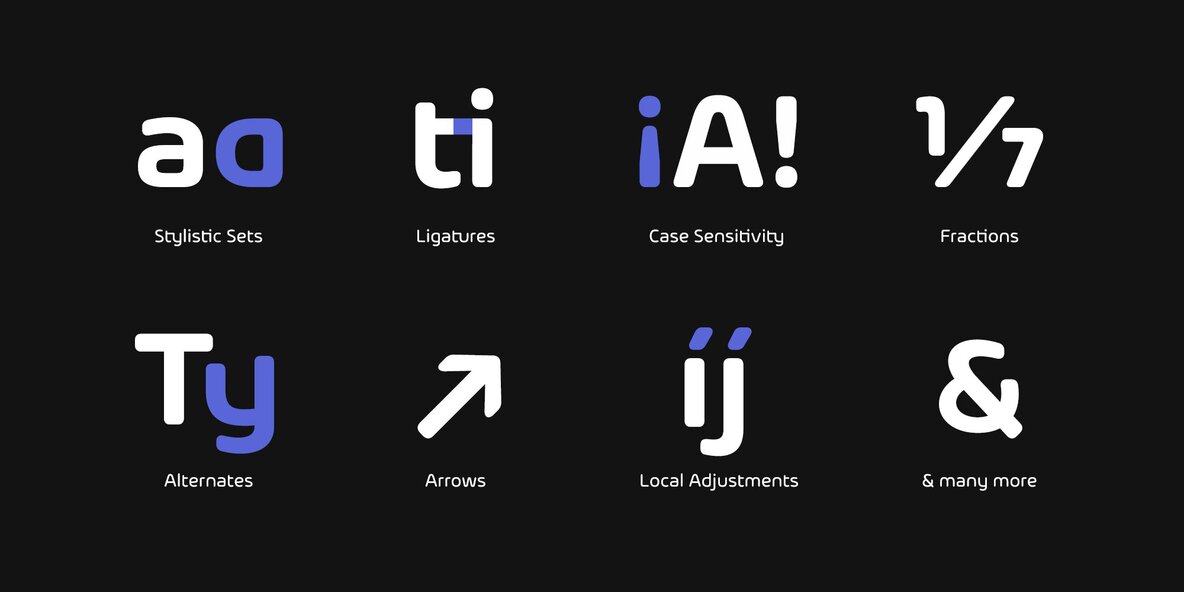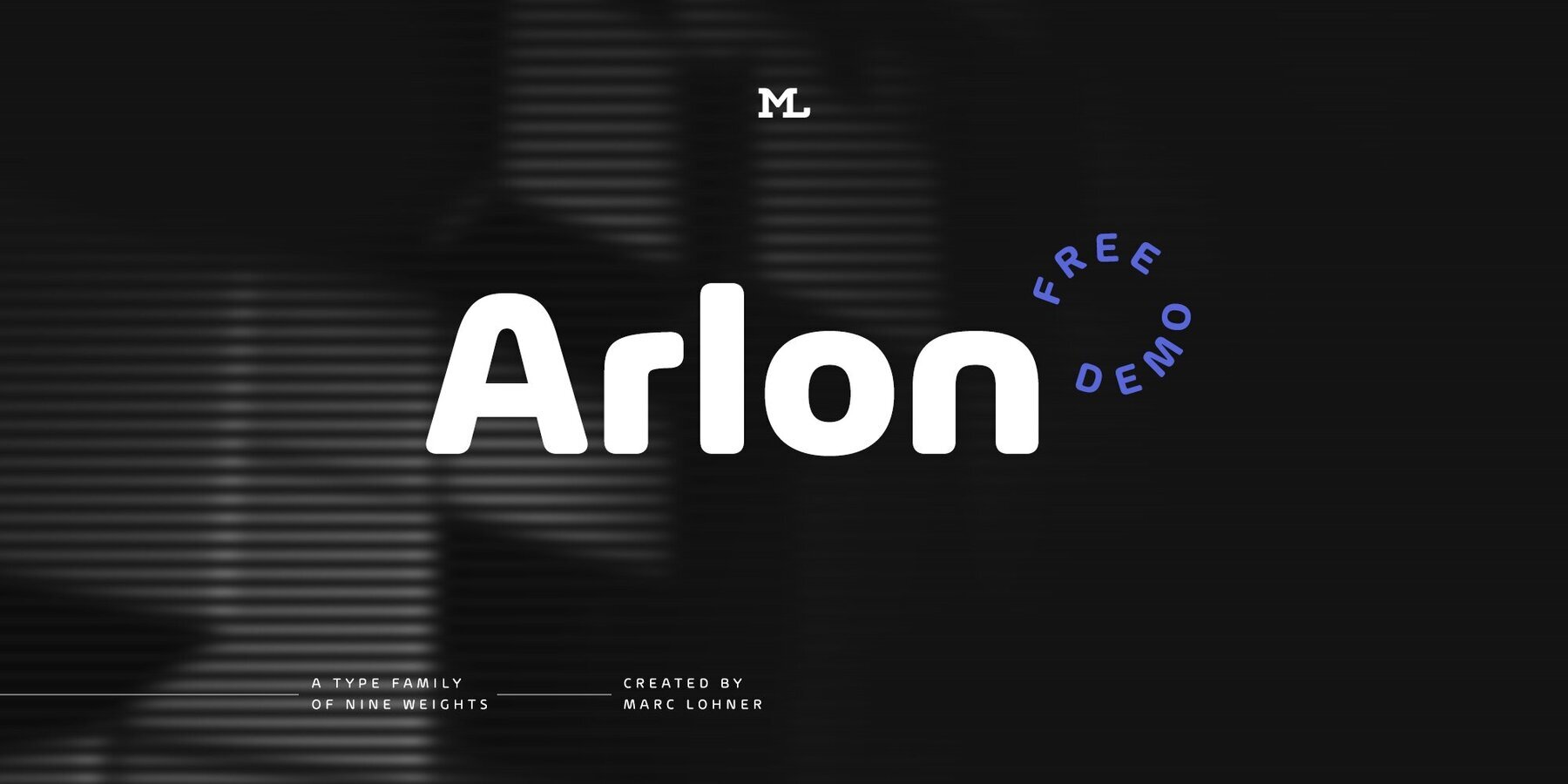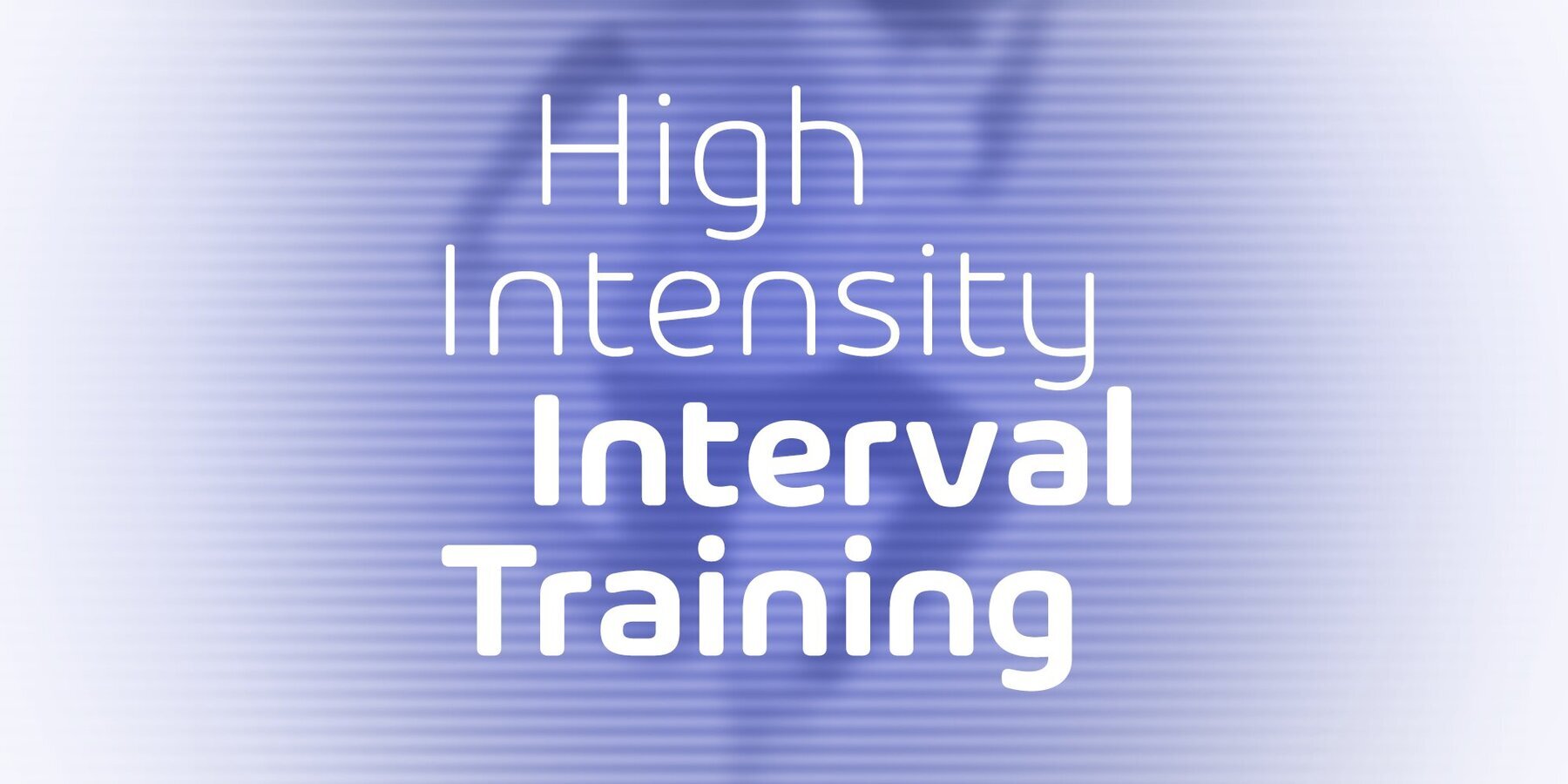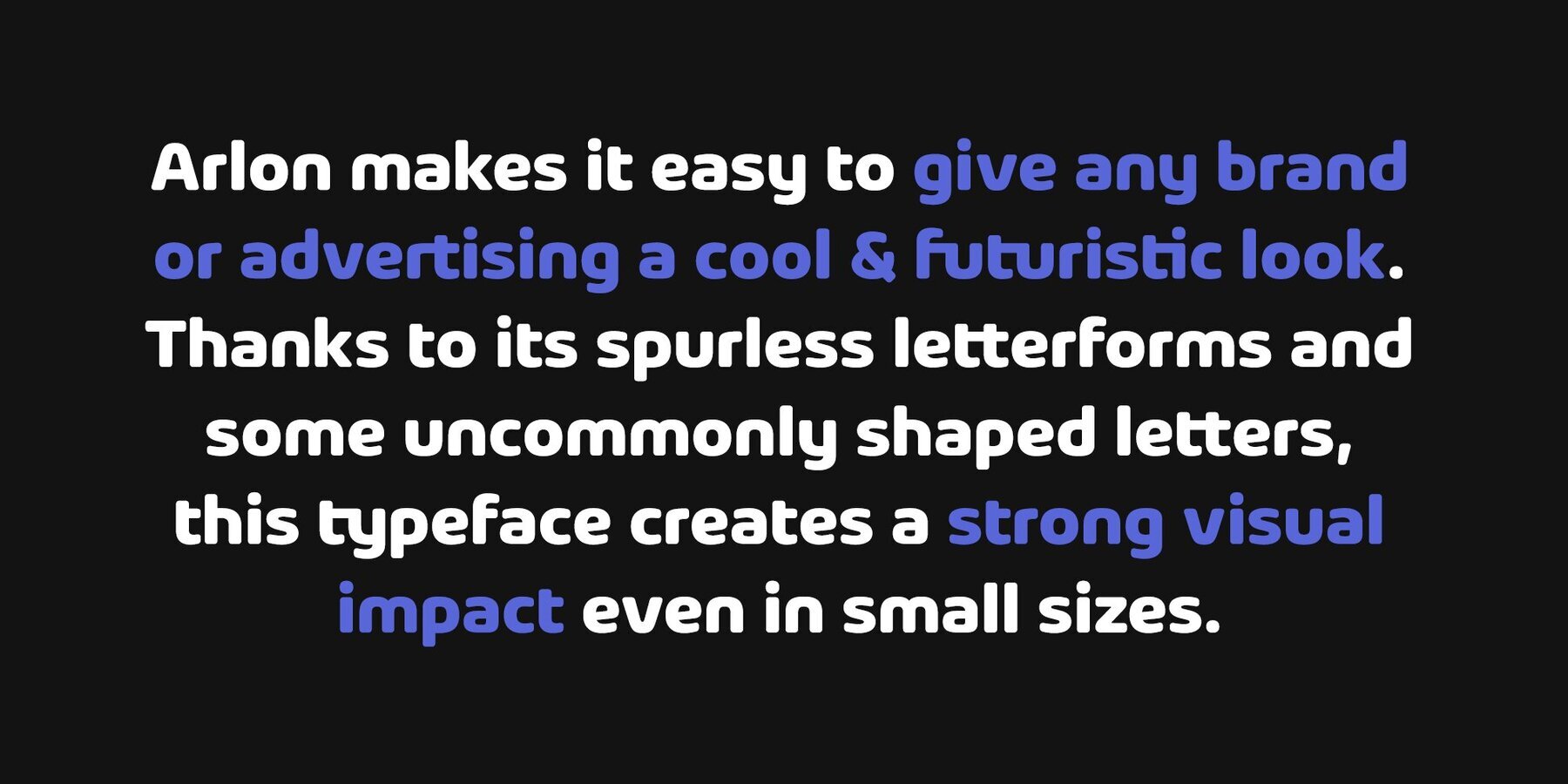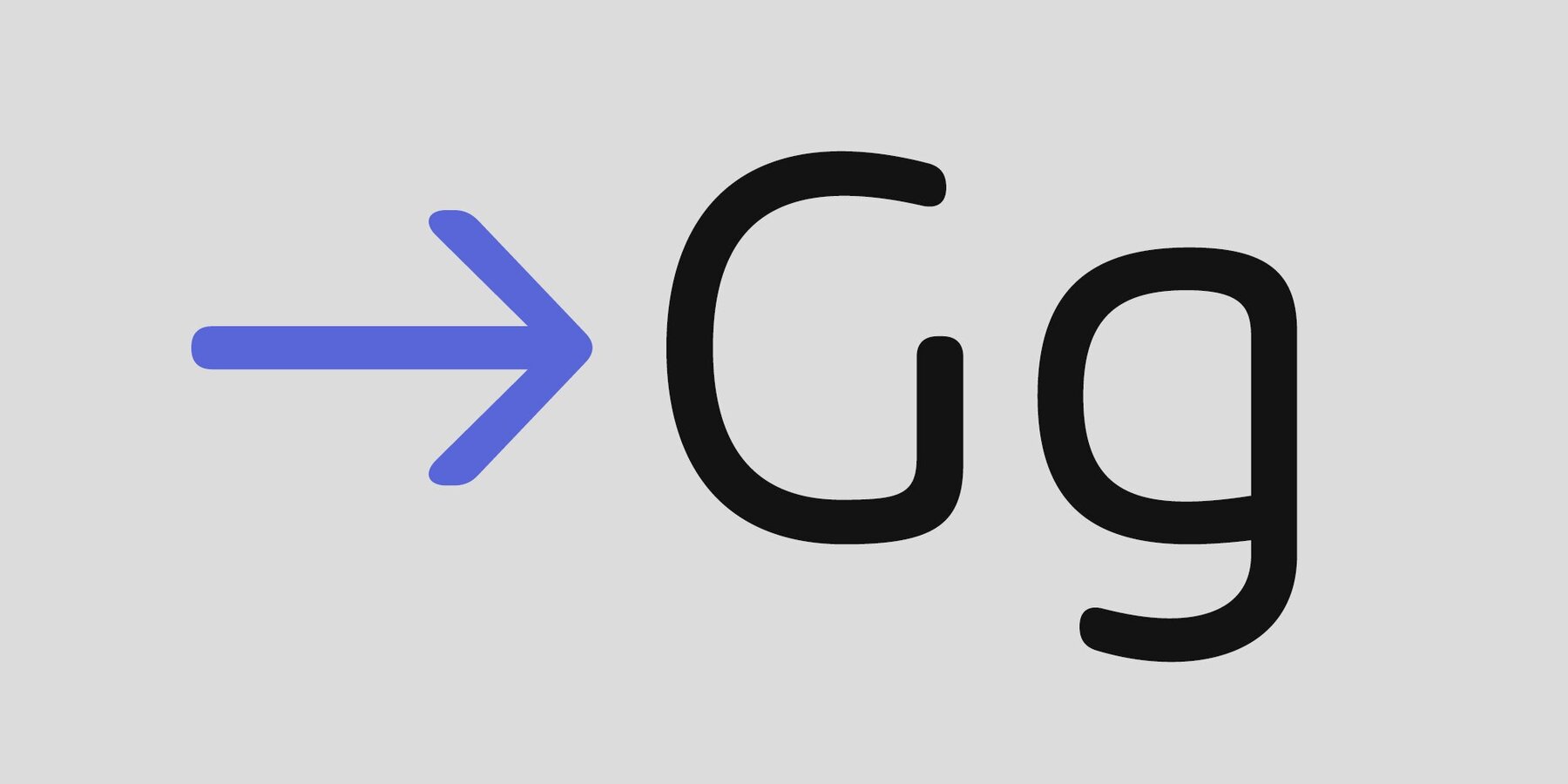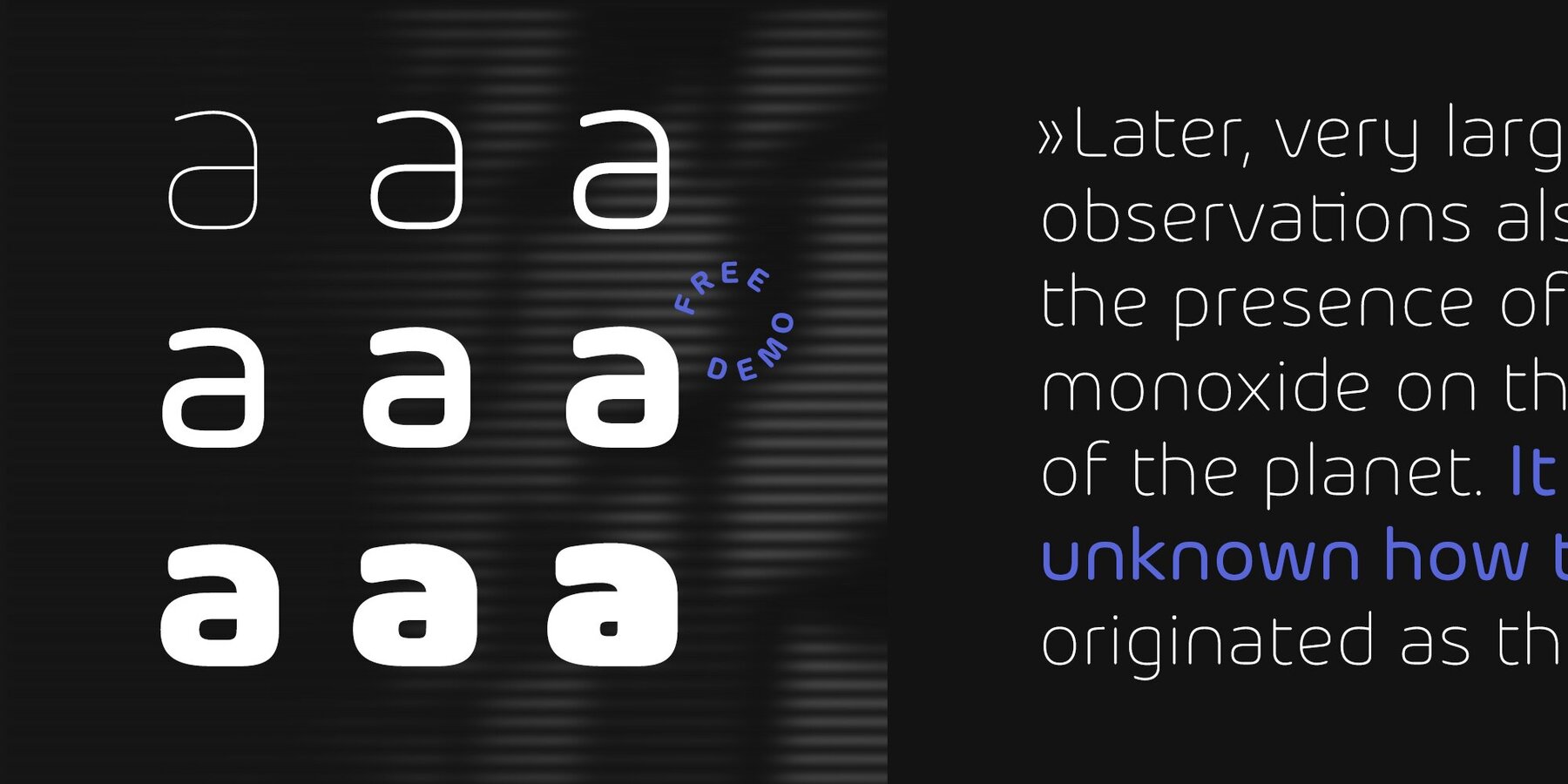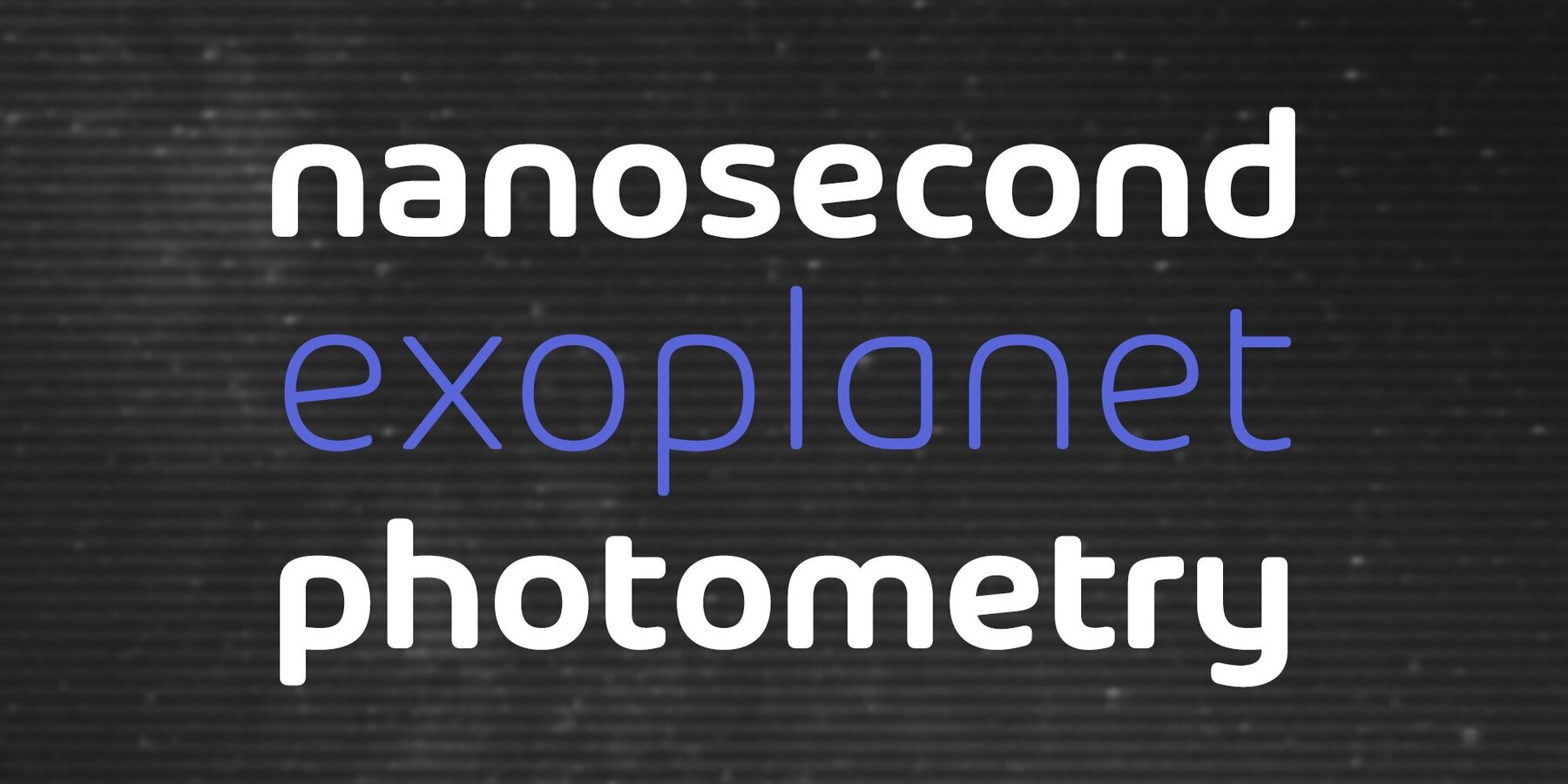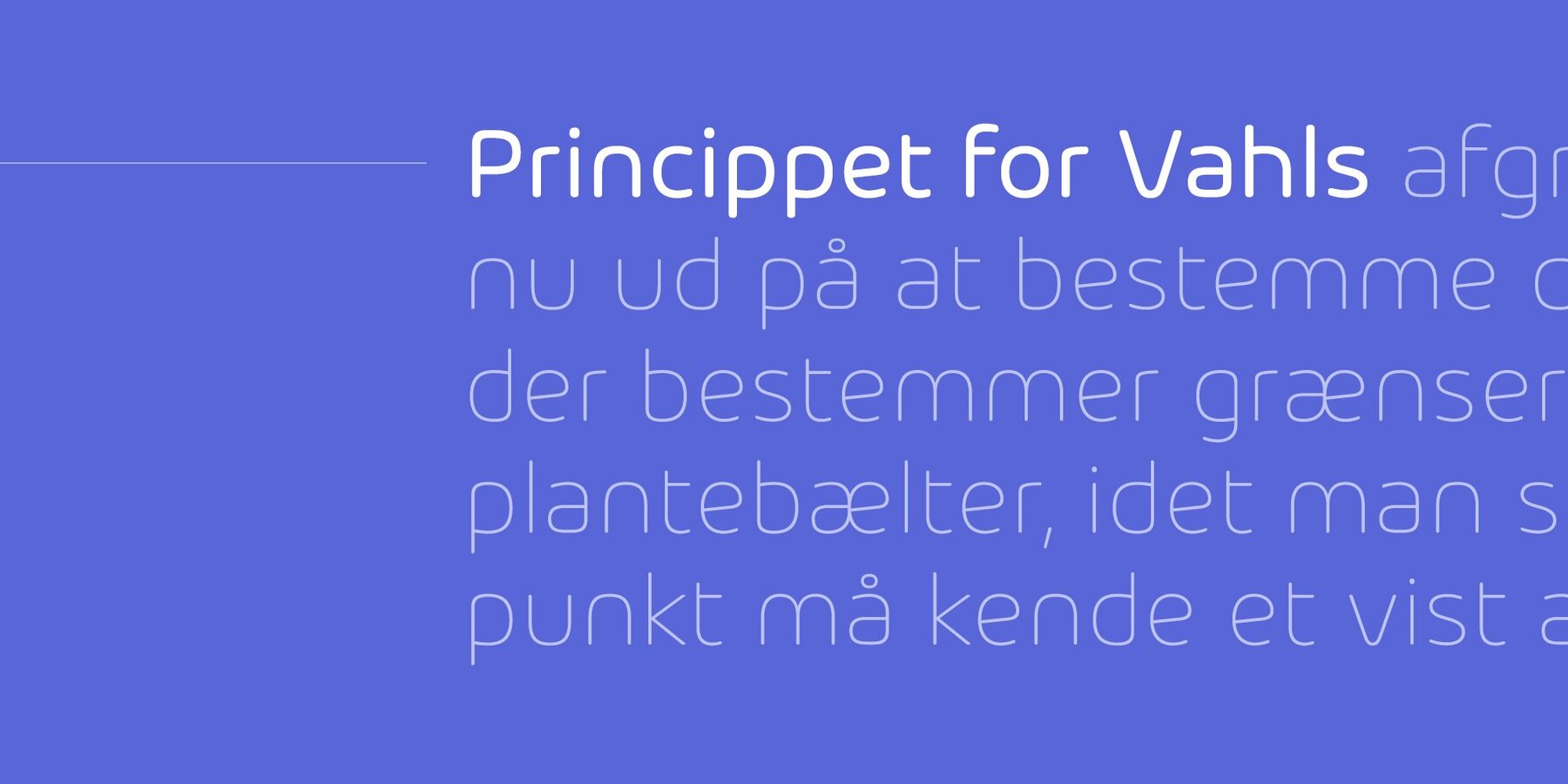
Arlon makes it easy to give any brand or advertising a cool & futuristic look. Thanks to its spurless letterforms and some uncommonly shaped letters, this typeface creates a strong visual impact even in small sizes. Having generously rounded angles and terminals, Arlon also spreads warmth and friendliness.
To sum up, Arlon communicates an affinity for technology – in a friendly way. The family contains a really wide span from thin to black and has many Opentype features to offer, making it a versatile font.
From Afrikaans via romanized Chinese through to Zulu: Arlon comes with 631 glyphs per font, covering more than 200 languages.